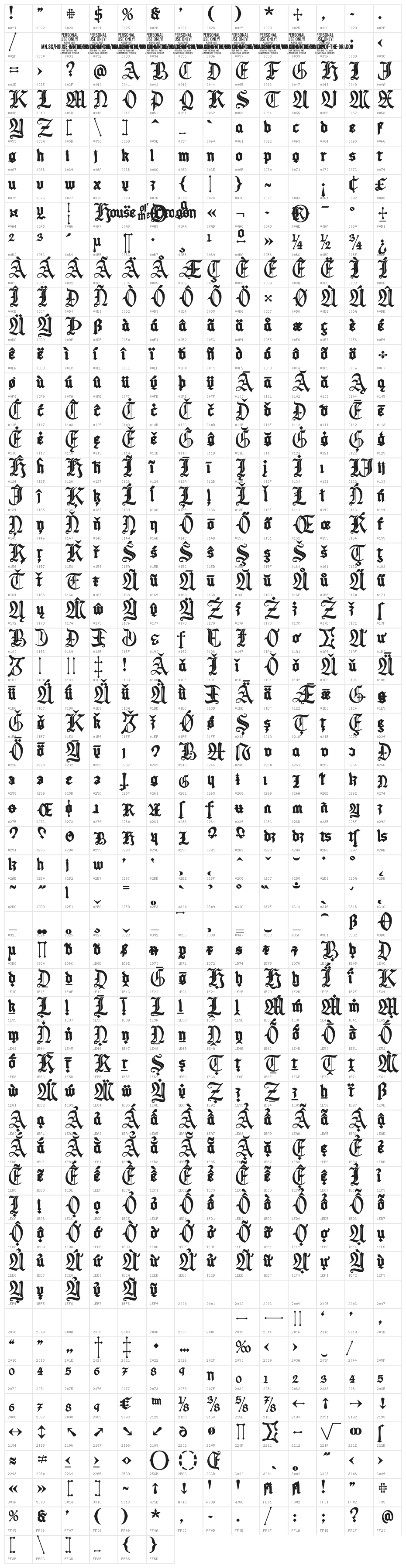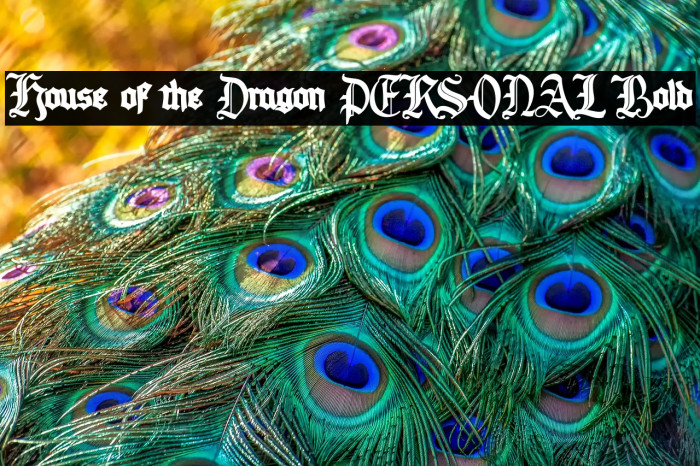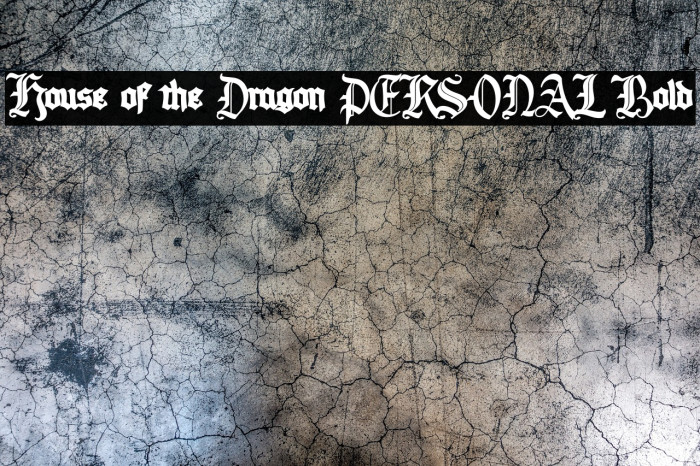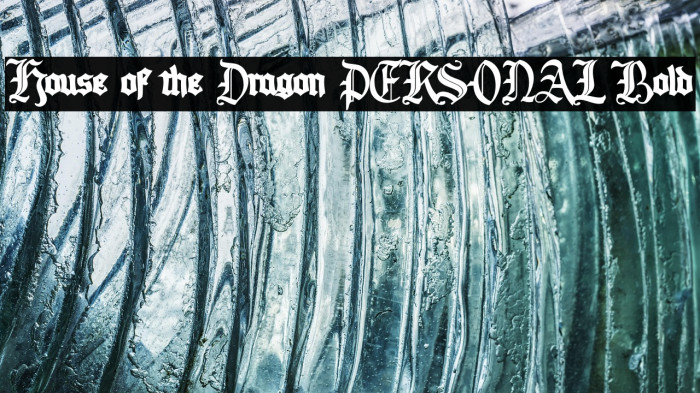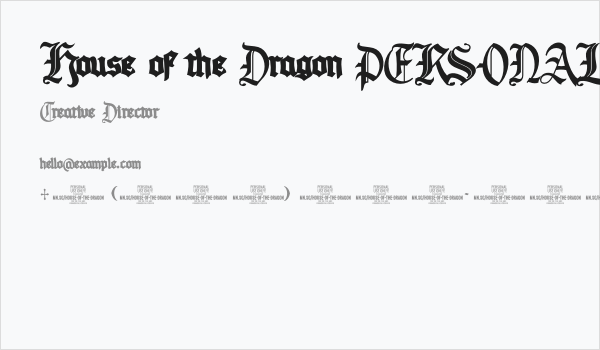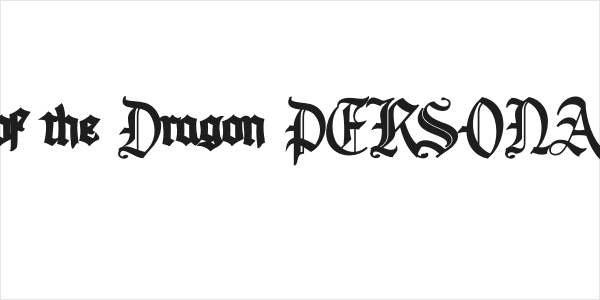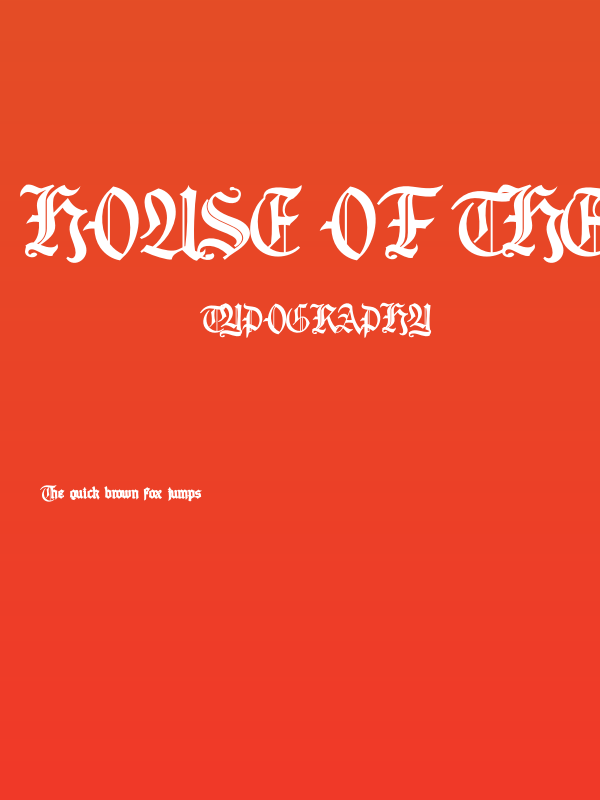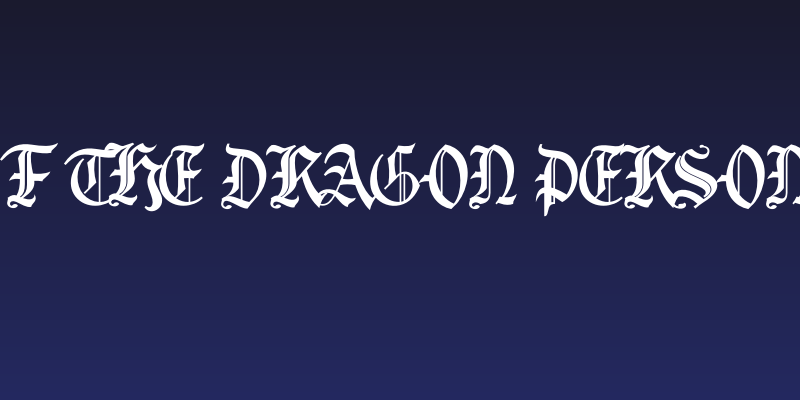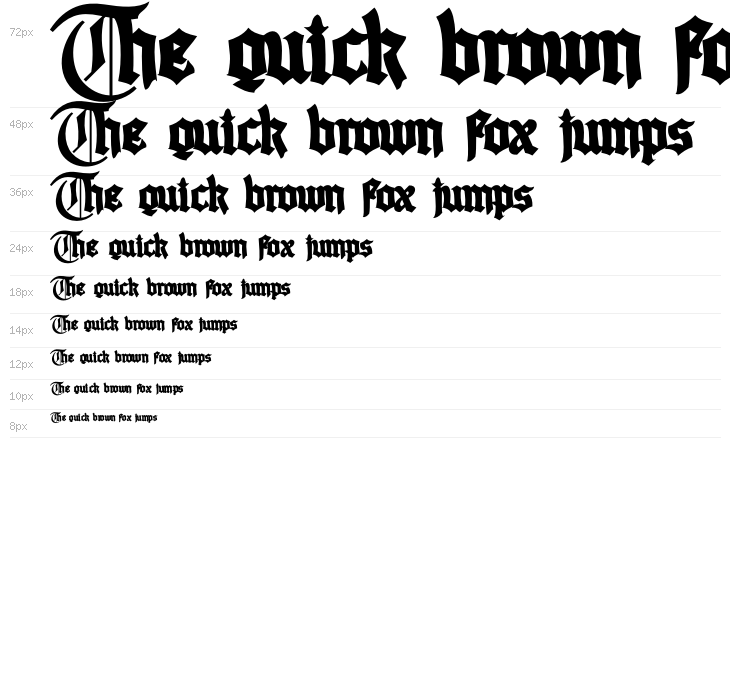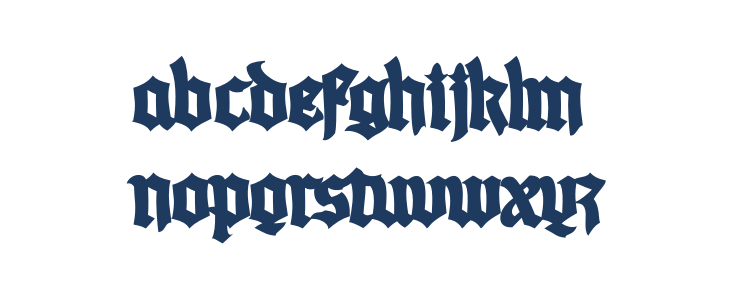
House of the Dragon PERSONAL Bold Font
House of the Dragon PERSONAL Bold Description
This font features a bold and dramatic style, reminiscent of medieval script with a modern twist. The uppercase letters are ornate, with intricate curves and sharp edges, giving a sense of grandeur and authority. The lowercase letters maintain a strong presence, with thick strokes and angular forms that enhance readability while preserving the decorative essence. The numerals and special characters are equally bold, ensuring consistency across all elements. This font is perfect for projects that require a touch of historical elegance combined with a contemporary flair.
| Proposed Projects | Ideal for fantasy-themed designs, book covers, movie posters, and branding that seeks a historical or regal touch. |